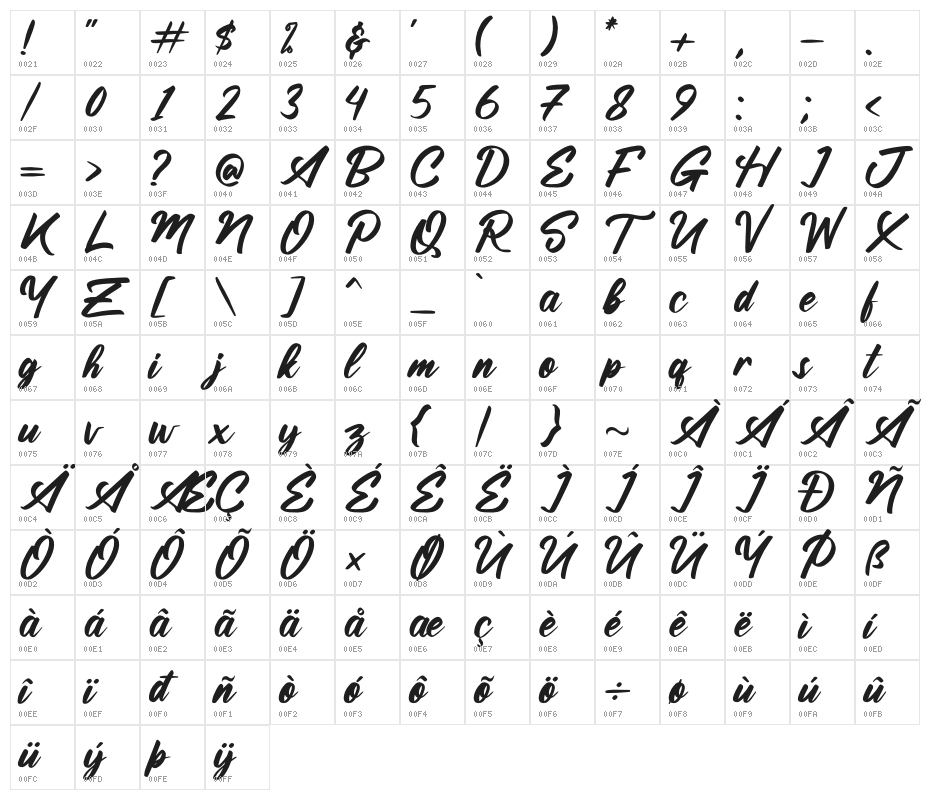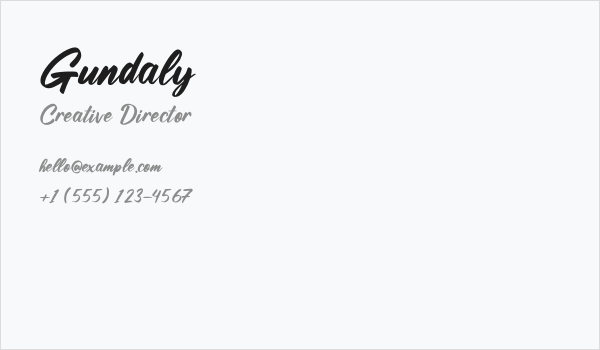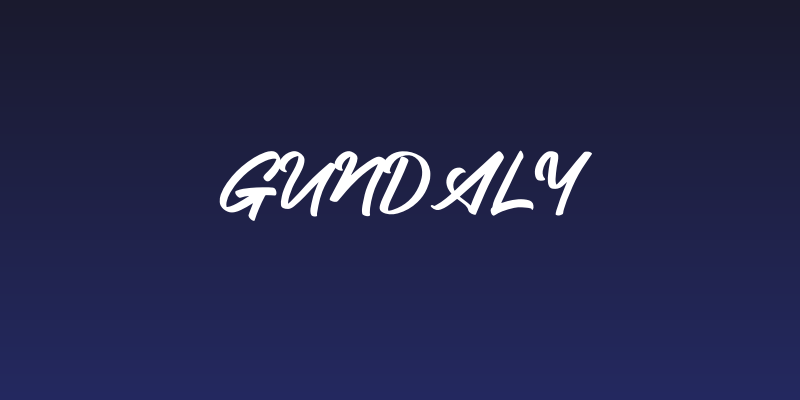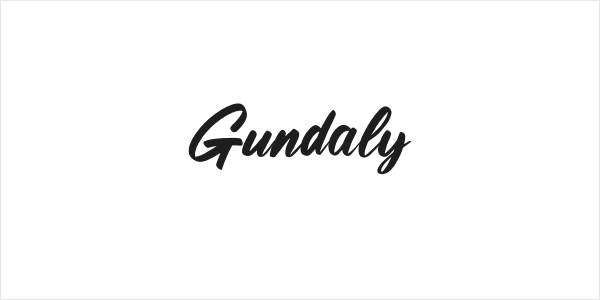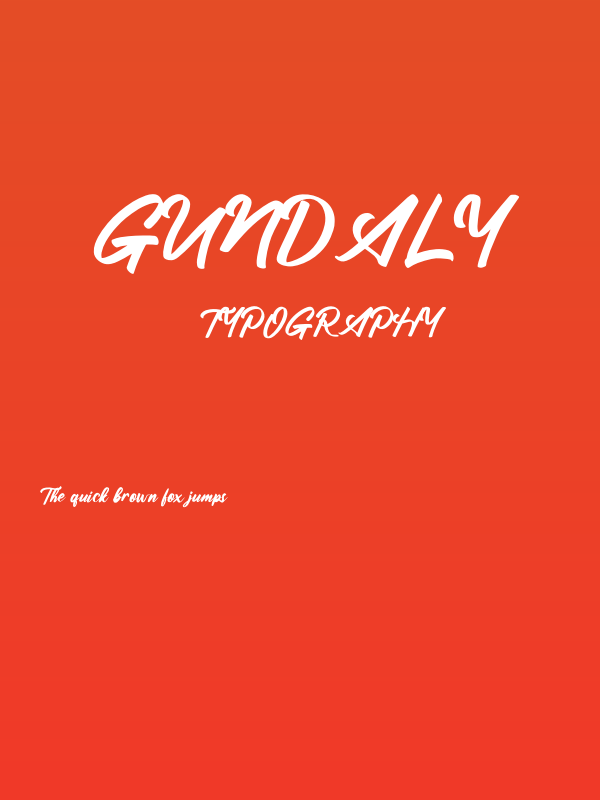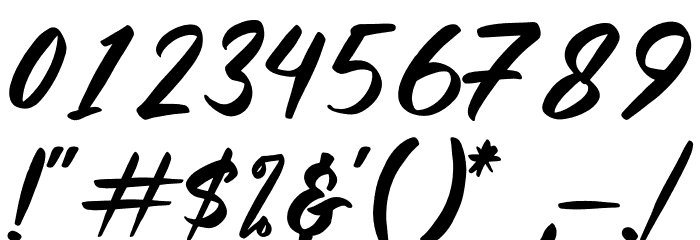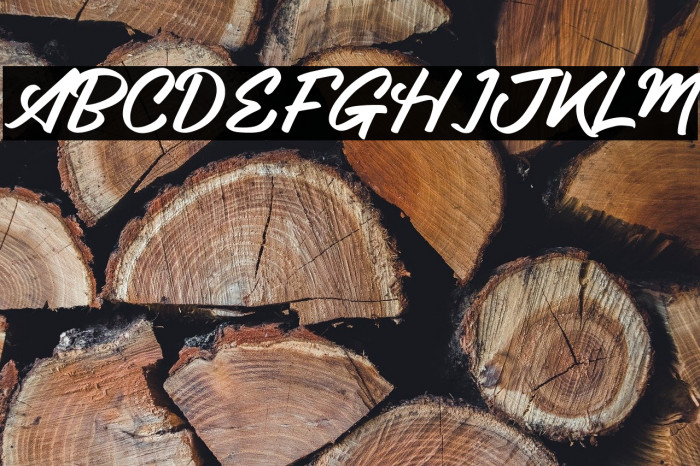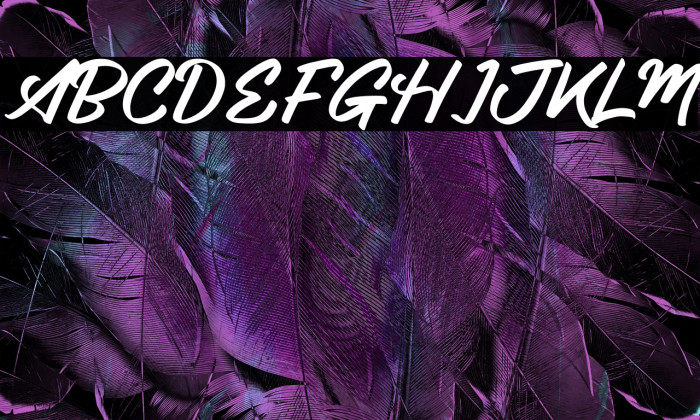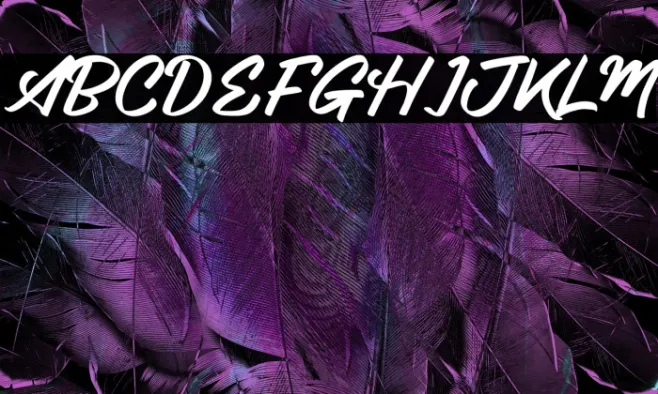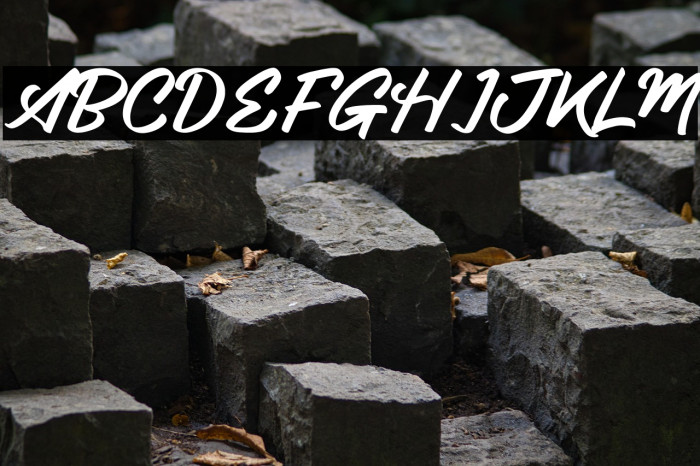
Gundaly Font
Gundaly Description
This font features a bold, cursive style with a dynamic and flowing appearance. The characters are interconnected, creating a sense of movement and fluidity. The uppercase letters are slightly more formal, while the lowercase letters maintain a casual, handwritten feel. The numbers and special characters are consistent with the overall style, offering a cohesive look across all glyphs. The strokes are thick and uniform, providing a strong visual impact. This font is ideal for projects that require a personal touch or a sense of elegance and creativity.